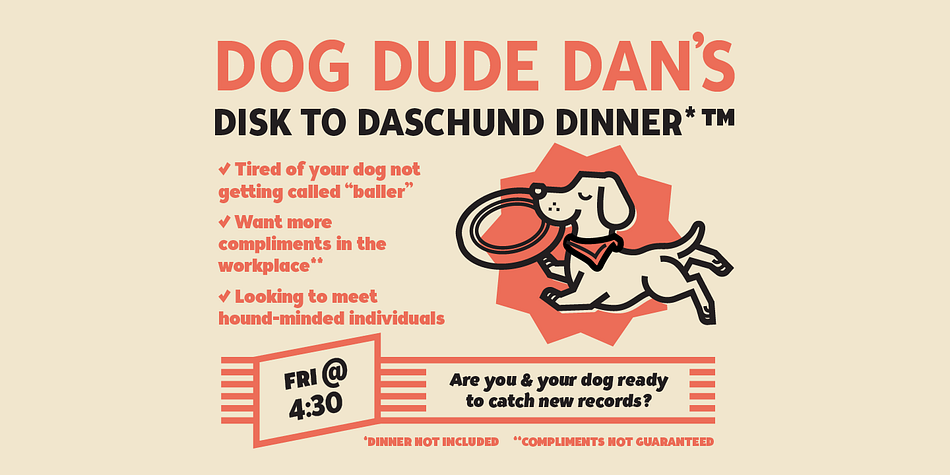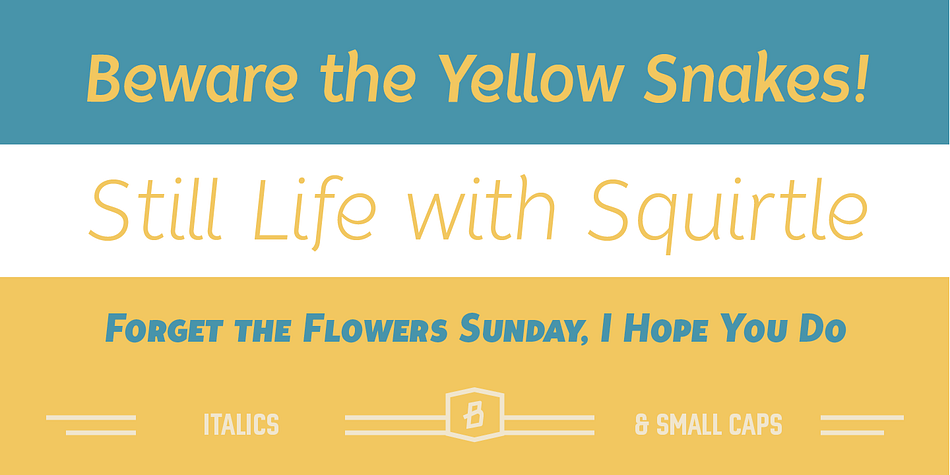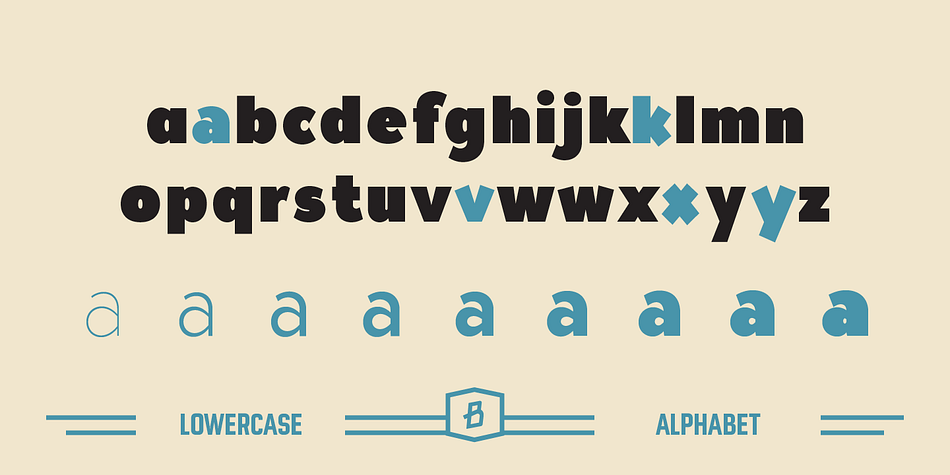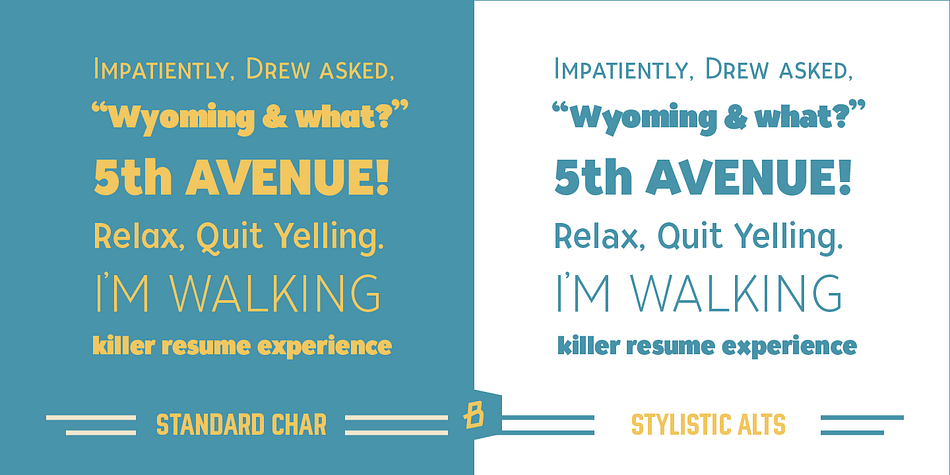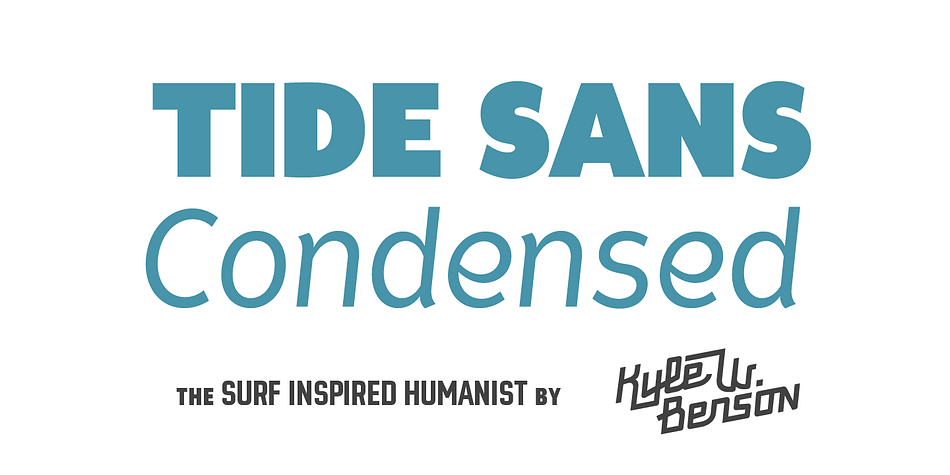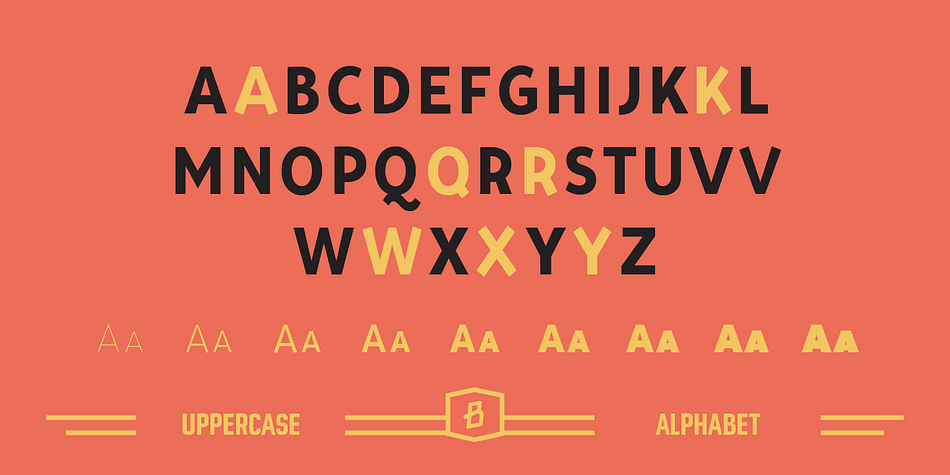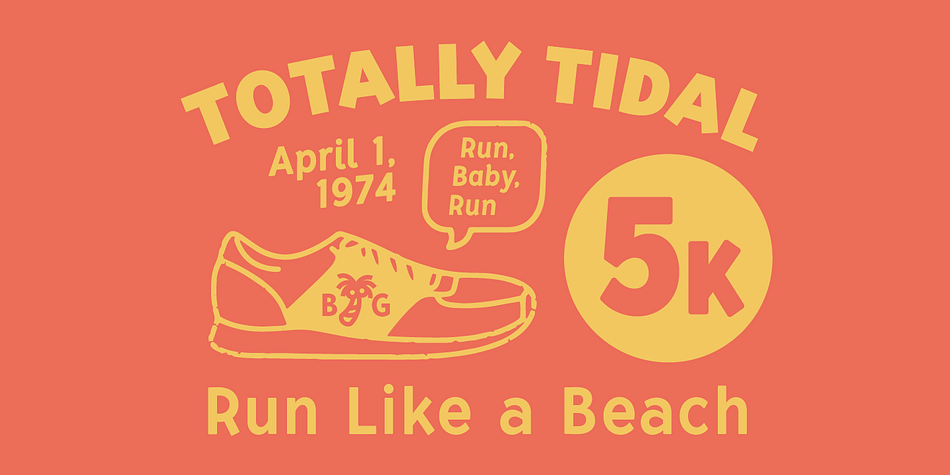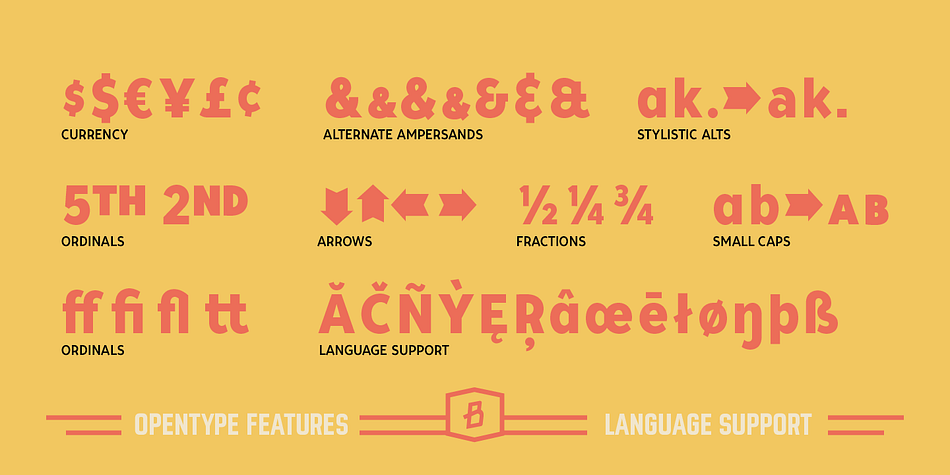
Tide Sans Condensed is a sans serif font family. This typeface has eighteen styles and was published by Kyle Wayne Benson.
Tide Sans Condensed is fresh, carefree, and just as good looking as its extended brother, Tide Sans.
The Tide Sans family includes beautiful italics and an overall affable look lost somewhere between a humanist and a neo grotesque. Tide Sans does the work for you by providing a ridiculously large stylistic alternates set, fine tuned small caps, and a whole beach of alternate (amper)sands to feel between your toes.